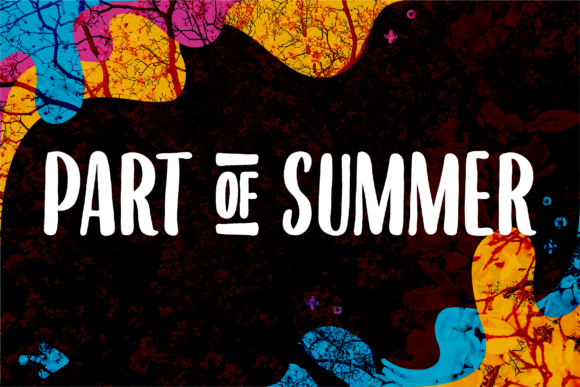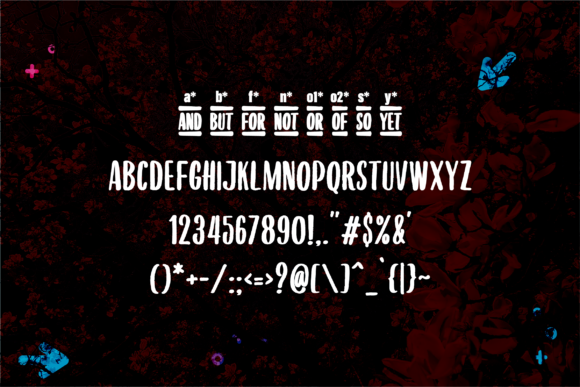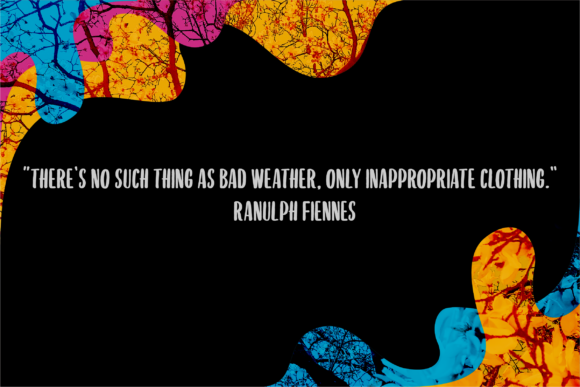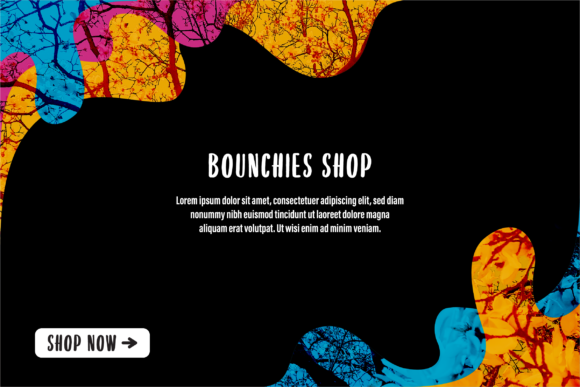
Part of Summer Font
About Part of Summer Font
Part of Summer takes its inspiration from a child’s handwriting, which give this script an undeniably whimsical and heartfelt feel.